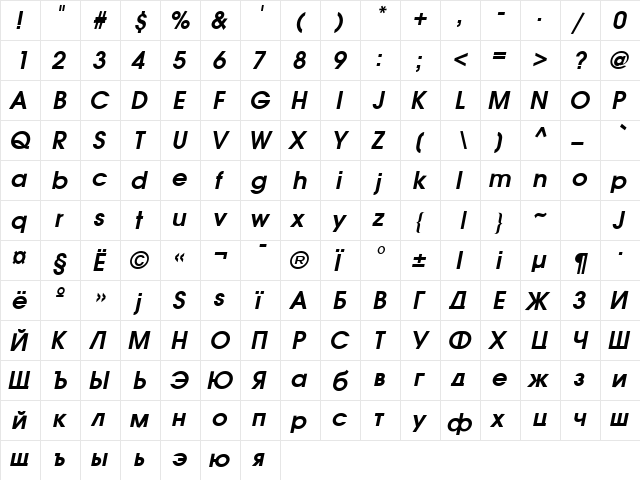
Avalanche Bold-Italic
Design Context for Avalanche Typeface
Avalanche offers clean, dependable letterforms without strong stylistic allegiance, making it a practical choice for designers who need flexibility. The dynamic lean of this cut emphasises speed and emphasis in any layout. The heavy weight commands attention and anchors typographic hierarchies.
Pro Tip: Use Avalanche for emphasis, pull quotes, and subheadings where its slanted energy can add rhythm to the layout.